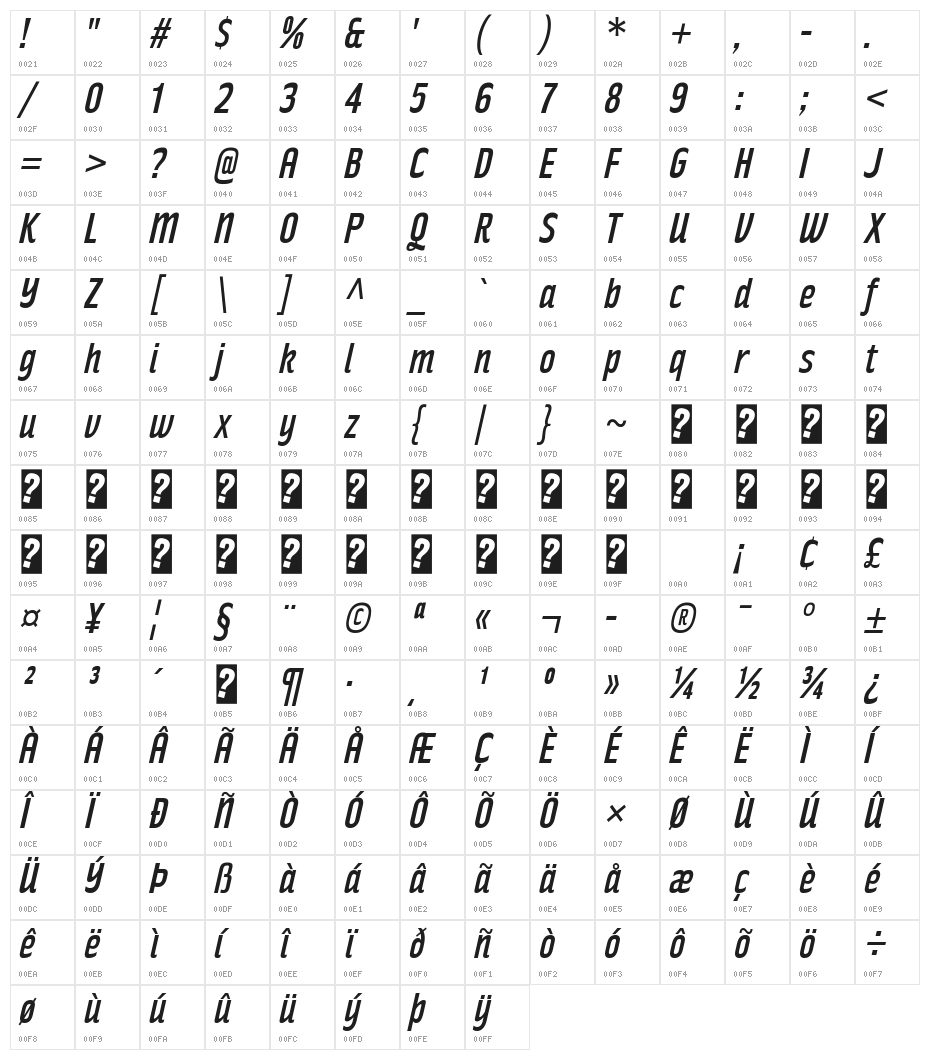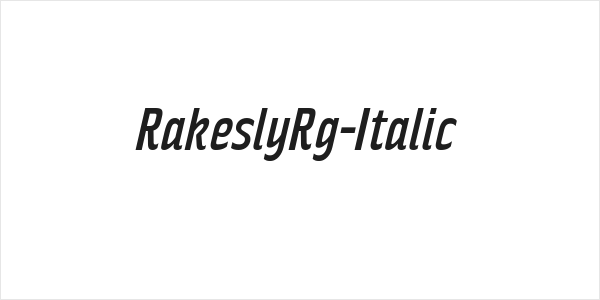
RakeslyRg-Italic Font
RakeslyRg-Italic Description
This font exhibits a modern and dynamic style with a distinct italic slant, giving it a sense of motion and energy. The characters are bold and slightly condensed, which enhances readability while maintaining a sleek appearance. The strokes are consistent in weight, providing a uniform look across all characters. The uppercase and lowercase letters are well-proportioned, and the numerals are clear and legible. Special characters are designed to complement the overall aesthetic, making this font versatile for various applications.
| Use Case | Headlines, Logos, Advertising |
| Proposed Projects | Ideal for branding, advertising, and editorial design where a modern and energetic feel is desired. |